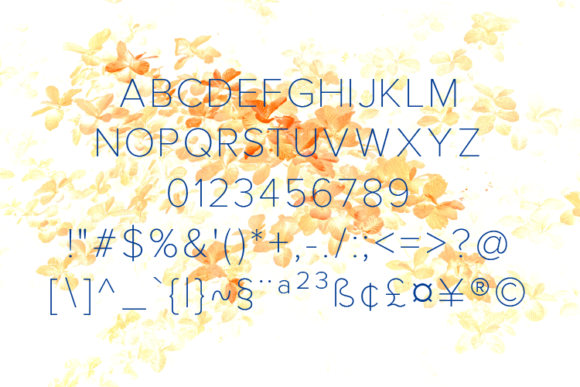
Gerkco Thin Font: Elevate Your Designs with a Touch of Modern Elegance
In the world of typography, fonts play a pivotal role in defining the aesthetic and tone of any design project. Whether you’re a seasoned designer or a crafty DIY enthusiast, finding the right font can be a game-changer. This is where Gerkco Thin comes into play—a clean, elegant, and modern sans serif font that is poised to transform your creative endeavors. In this article, we’ll dive deep into the features of Gerkco Thin, explore its potential applications, and understand why it has become a go-to choice for designers and crafters alike.
The Essence of Gerkco Thin
Gerkco Thin is more than just a font; it’s a design statement. Its primary characteristic is its sleek, sans serif design, which exudes a sense of modernity and sophistication. The term “thin” refers to its light weight, which offers a subtle yet impactful presence on any medium. This font is meticulously crafted to provide a clean and elegant look, making it an ideal choice for projects that demand a touch of refinement.
Key Features of Gerkco Thin
- Modern Aesthetic: Gerkco Thin boasts a contemporary look that aligns with current design trends. Its sleek lines and minimalist approach make it perfect for designs that require a modern edge.
- Versatility: This font is incredibly versatile, suitable for a wide range of projects from digital content to print materials. Its adaptability makes it a valuable asset in any designer’s toolkit.
- Elegance: The elegance of Gerkco Thin is undeniable. It adds a touch of sophistication to any design, making it suitable for high-end branding, editorials, and more.
- Legibility: Despite its thin strokes, Gerkco Thin maintains excellent legibility, ensuring that your message is conveyed clearly and effectively.
Applications of Gerkco Thin
The versatility of Gerkco Thin opens up a myriad of applications across various design fields. Here are some ways you can leverage this beautiful font:
- Logo Design: Create cool and contemporary logos that stand out. Gerkco Thin’s modern feel and clean lines make it an excellent choice for logotypes.
- Social Media Graphics: Elevate your social media presence with eye-catching posts and stories. Gerkco Thin can help you create visually appealing content that captures attention.
- Book Covers: Give your book a professional and modern look with Gerkco Thin. It’s perfect for titles that require a touch of elegance and sophistication.
- Branding and Advertising: Use Gerkco Thin to create a consistent and modern brand image. It’s ideal for developing a refined and contemporary aesthetic.
Tips for Using Gerkco Thin
To make the most out of Gerkco Thin, consider the following tips:
- Pair it Wisely: Combine Gerkco Thin with complementary fonts to create visual interest. A contrasting font can help emphasize headings or highlights.
- Experiment with Colors: While Gerkco Thin looks great in black and white, experimenting with colors can add another dimension to your design.
- Adjust Line Spacing: For better readability, ensure adequate line spacing. This is particularly important for body text.
Gerkco Thin is a remarkable font that brings a balanced and modern look to any design project. Its clean and elegant appearance, coupled with its versatility, makes it an invaluable resource for designers and crafters. Whether you’re aiming to create stunning logos, captivating social media content, or professional book covers, Gerkco Thin is up to the task. Embrace the modern feel of Gerkco Thin and let it inspire your next creative project.
With Gerkco Thin, you’re not just choosing a font; you’re adopting a design philosophy that prioritizes elegance, modernity, and versatility. So, go ahead and give your projects the sophisticated look they deserve with Gerkco Thin.